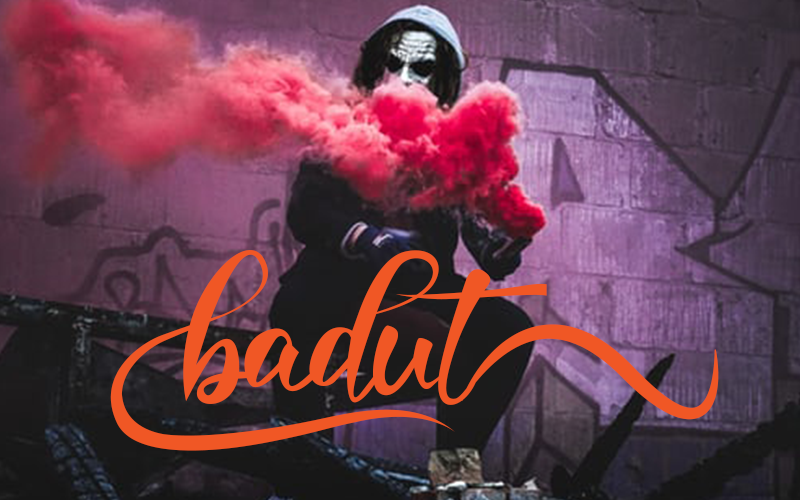
Badut Font
Badut Font is a cute and casual handwritten font with an incredibly friendly feel. Whether you’re looking for fonts for Instagram or calligraphy scripts for DIY projects, this font will turn any creative idea into a true piece of art!